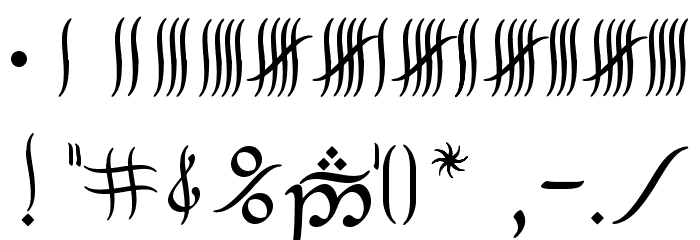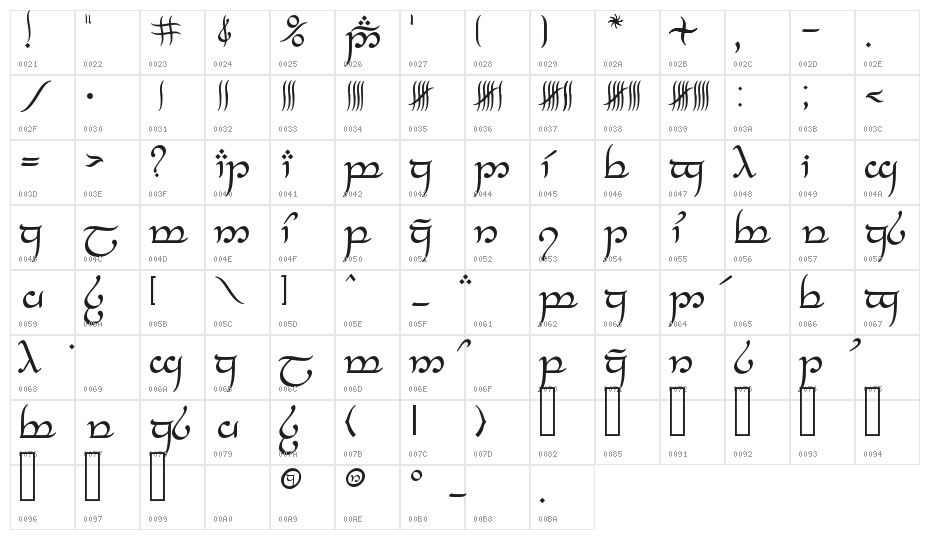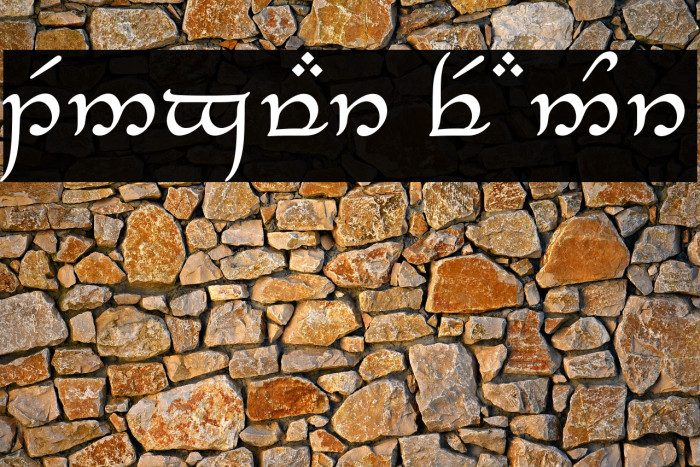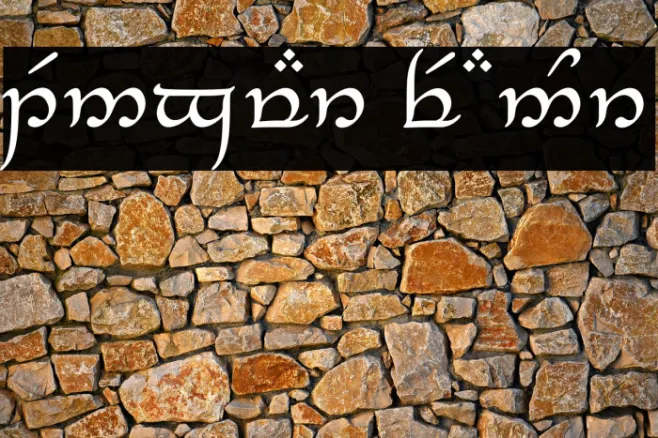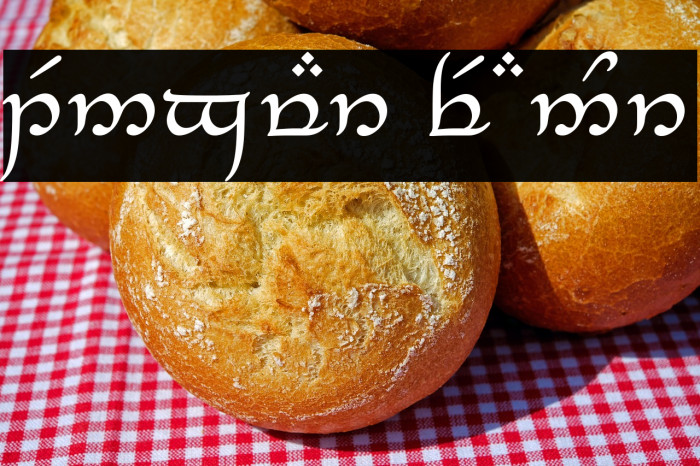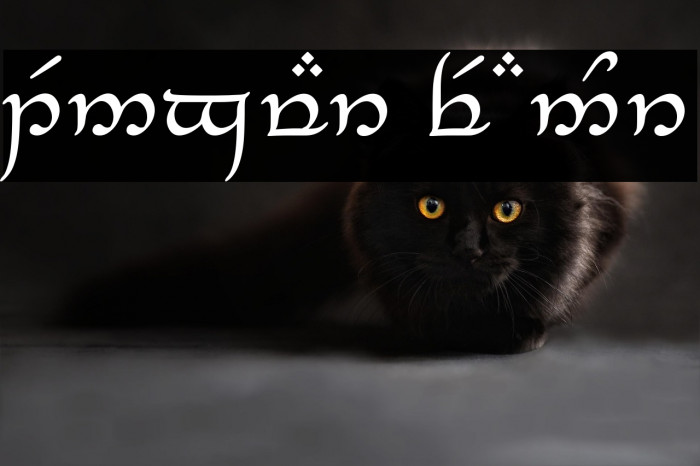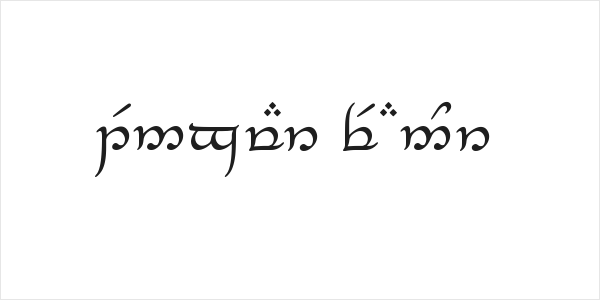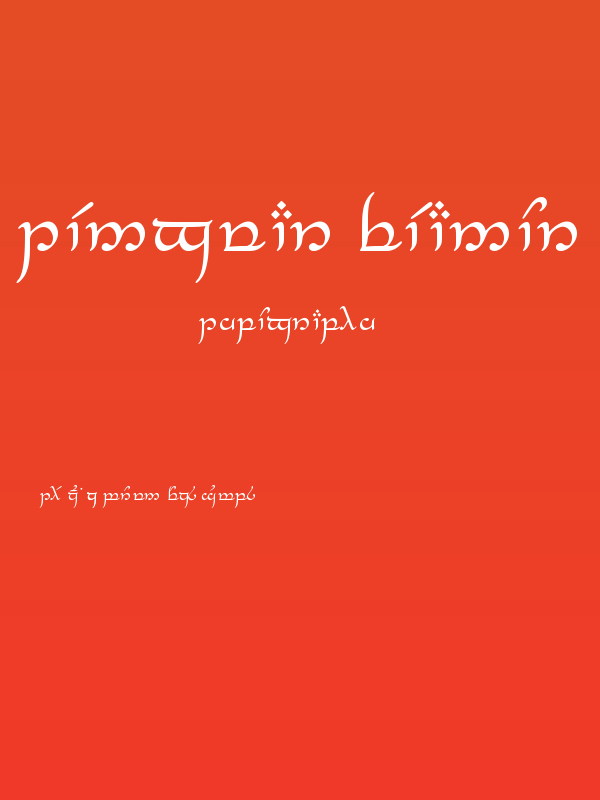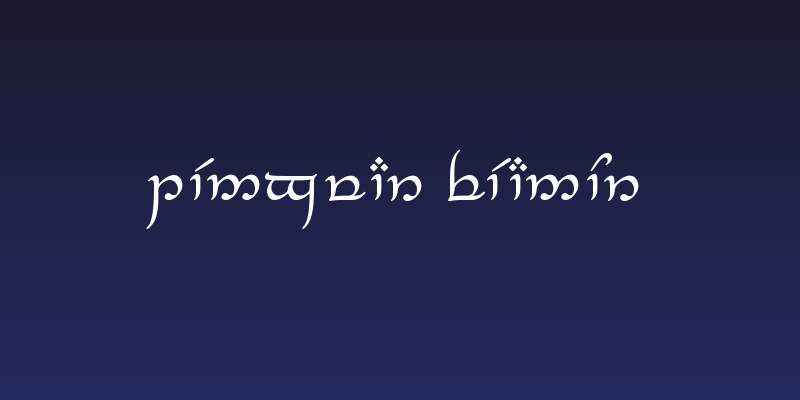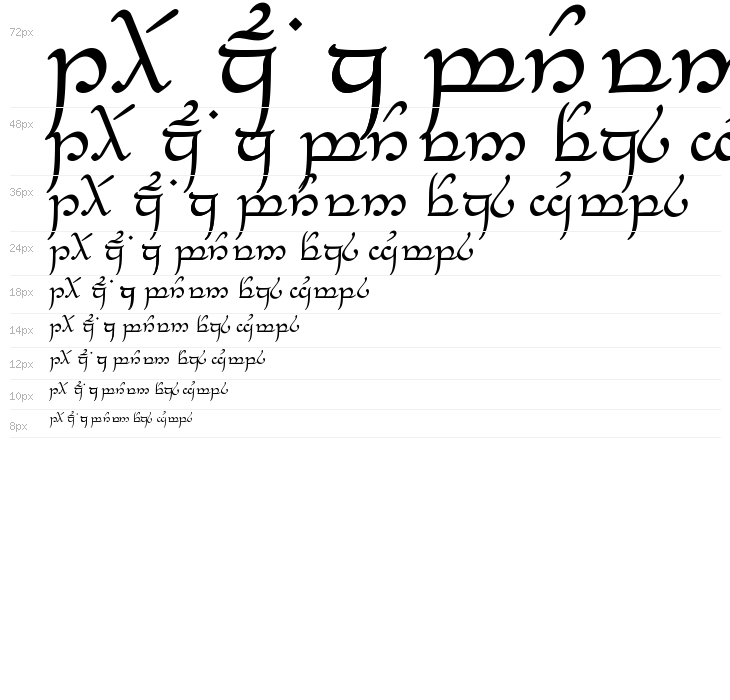
Tengwar Feanor Font
Tengwar Feanor Description
This script is a fictional writing system with elegant, flowing lines and intricate curves. It features a unique set of characters that resemble a combination of calligraphy and ancient script. The characters are highly stylized, with an emphasis on vertical strokes and delicate loops, creating a sense of fluidity and grace. The script is visually striking, with a mystical and otherworldly appearance, often associated with fantasy settings. The characters are evenly spaced, maintaining a consistent rhythm across the text. This script is not intended for practical use in modern languages but serves as a decorative element or for fictional languages.
| Use Case | Logos, Decorative text, Fantasy settings |
| Proposed Projects | Ideal for fantasy book covers, game design, or creating fictional languages in films. |